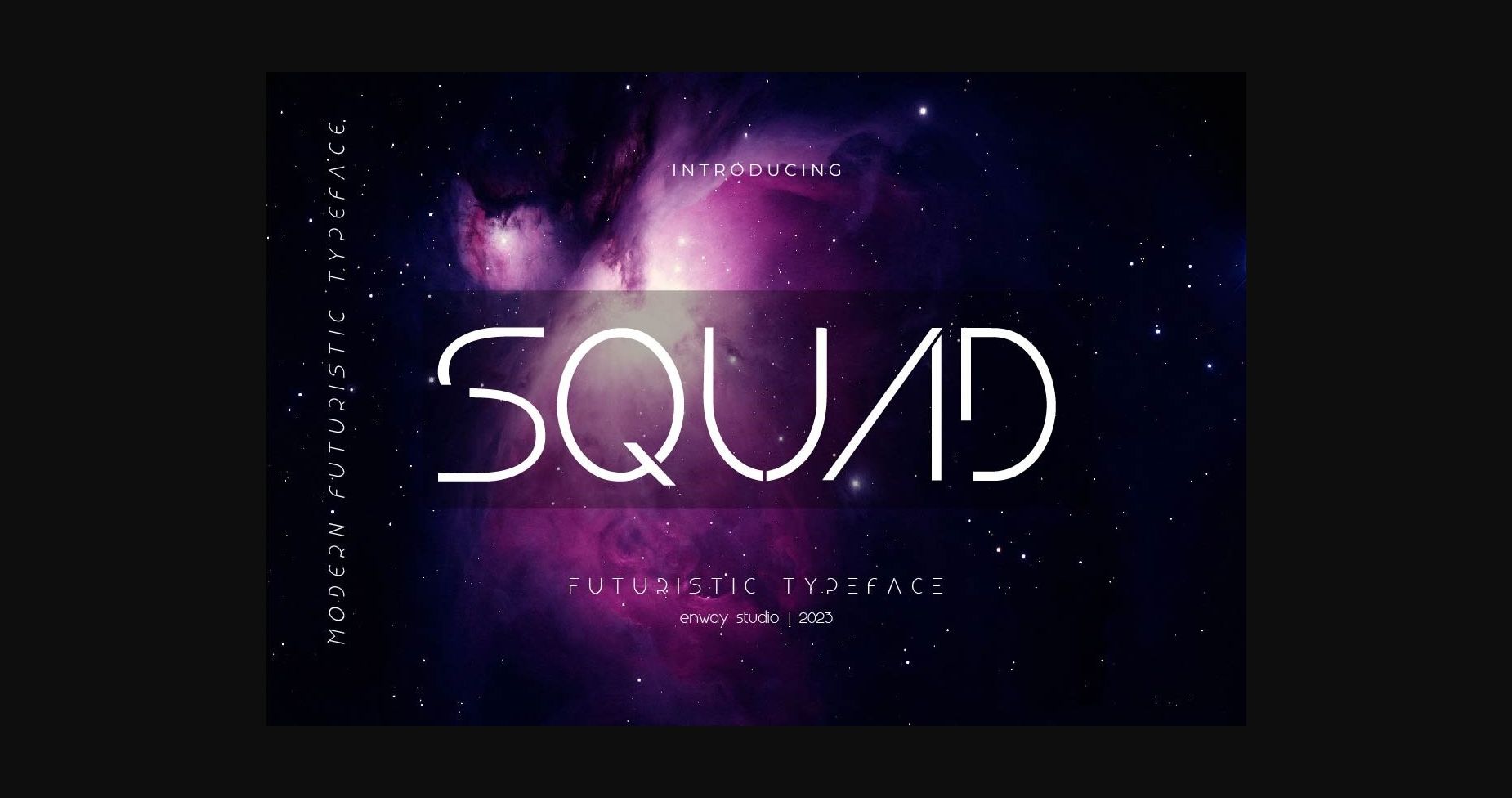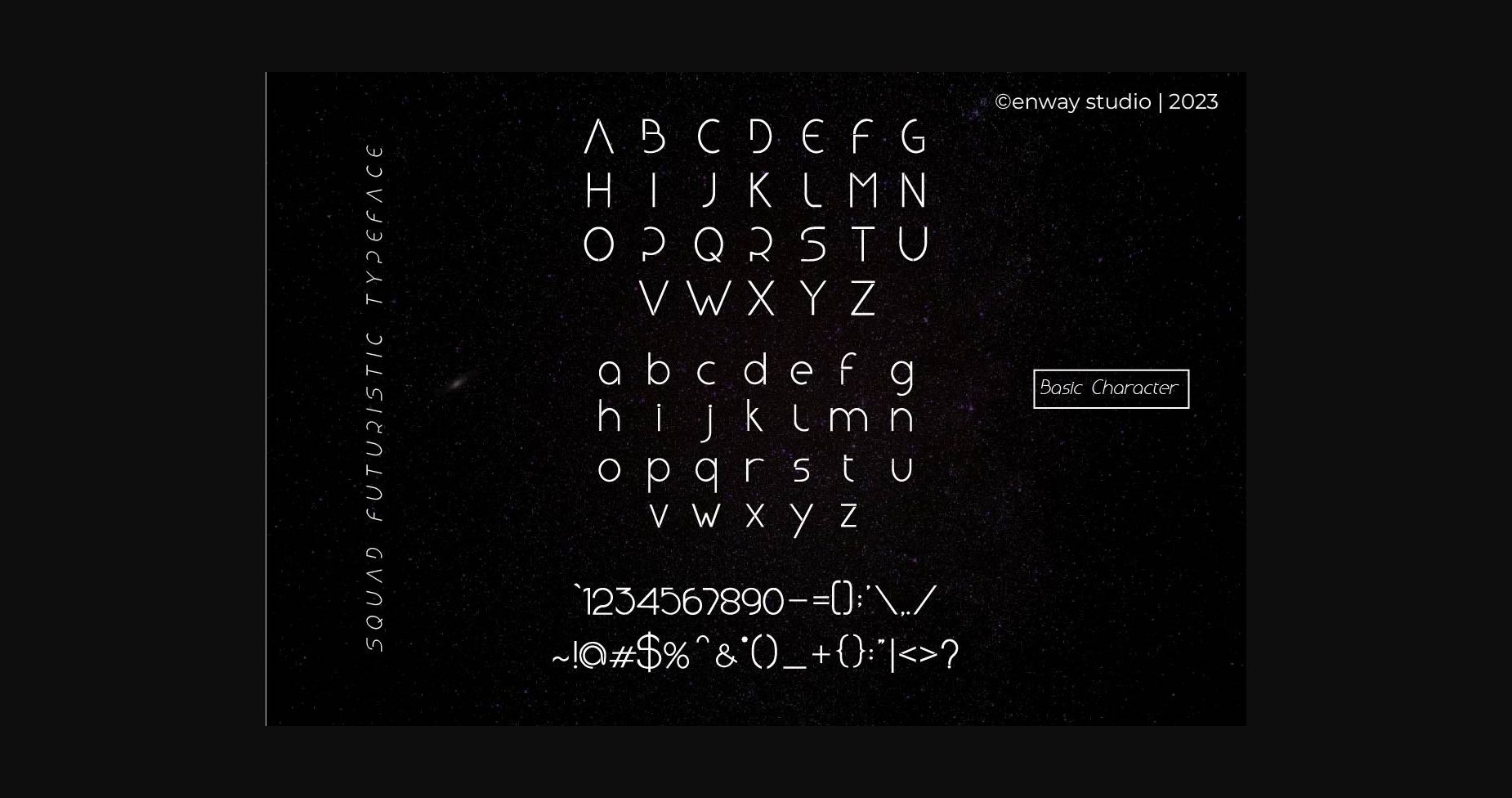
About Squad Font
Squad is a futuristic font that we can find in logos, sci-fi movies, games, and present gadgets. Designed with minimalist style and unique letterforms, a perfect choice to use on logos, labels, posters, packaging, books, movies, presentations, games, and much more is complete with an elegant touch that will give your design a more futuristic and dynamic look.